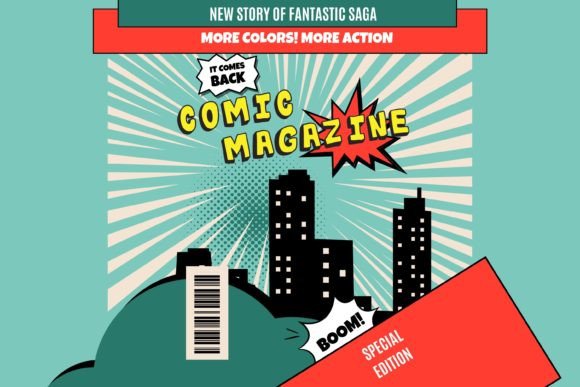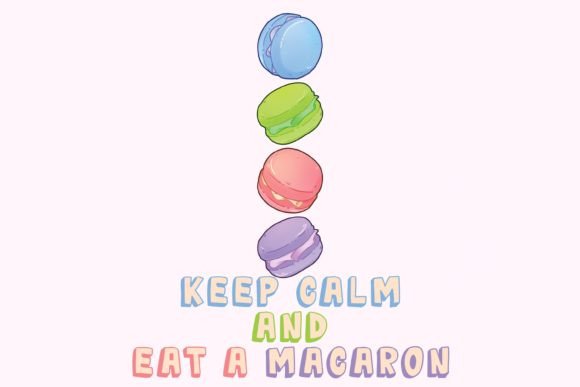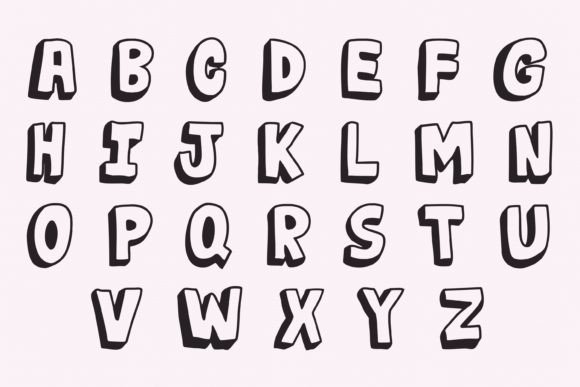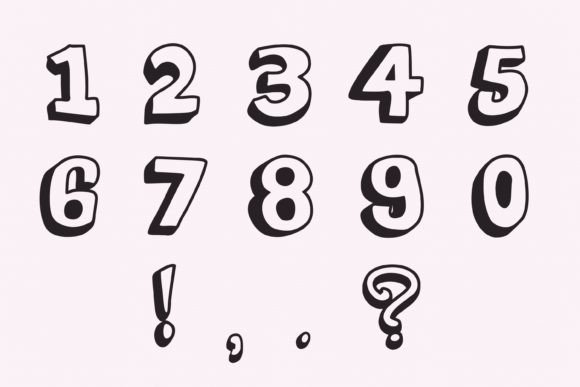
Candy Font: The Sweetest Addition to Your Design Projects
Are you looking for a font that can add a touch of fun and whimsy to your design projects? Look no further than Candy, a quirky cartoon display font that’s sure to bring a smile to your face. With its bold and colorful personality, Candy is the perfect choice for designers and crafters who want to add a dash of excitement to their work.
What is Candy Font?
Candy is a fun and quirky cartoon display font that’s designed to make a statement. Its bold and colorful letters are perfect for creating eye-catching headlines, titles, and captions that will grab the attention of your audience. Whether you’re working on a poster, t-shirt, or sticker, Candy is the perfect choice for adding a touch of whimsy and fun to your design.
Why Use Candy Font?
So why should you use Candy font in your design projects? Here are just a few reasons:
- Adds a touch of fun and whimsy: Candy font is the perfect way to add a dash of excitement and personality to your design projects. Its bold and colorful letters are sure to bring a smile to your face and engage your audience.
- Perfect for kids’ projects: Candy font is a great choice for designers and crafters who work on projects for kids. Its fun and playful personality is sure to appeal to children and make your project stand out.
- Great for posters and flyers: Candy font is perfect for creating eye-catching posters and flyers that will grab the attention of your audience. Its bold and colorful letters are sure to stand out and make your message heard.
- Experiment with different colors and styles: Candy font comes in a range of colors and styles, so don’t be afraid to experiment and try out different looks. You can use the font in bold, italic, and regular styles to create a unique and eye-catching design.
Candy Font in Action
So what does Candy font look like in action? Here are a few examples of how you can use the font in your design projects:
- Posters: Use Candy font to create eye-catching posters that will grab the attention of your audience. You can use the font to create bold and colorful headlines, titles, and captions that will make your poster stand out.
- T-shirts: Candy font is a great choice for t-shirts, especially for kids’ designs. You can use the font to create fun and playful designs that will appeal to children and make your t-shirt stand out.
- Stickers: Candy font is perfect for stickers, especially for kids’ party favors and decorations. You can use the font to create fun and colorful stickers that will add a touch of excitement to your project.
Candy font is a fun and quirky cartoon display font that’s perfect for designers and crafters who want to add a touch of excitement to their design projects. With its bold and colorful personality, Candy is sure to bring a smile to your face and engage your audience. Whether you’re working on a poster, t-shirt, or sticker, Candy font is the perfect choice for adding a dash of fun and whimsy to your design.
Candy is a fun and quirky cartoon display font. It will look great on posters, t-shirts, or even stickers. Include Candy in your artwork, and it will instantly bring it to life!